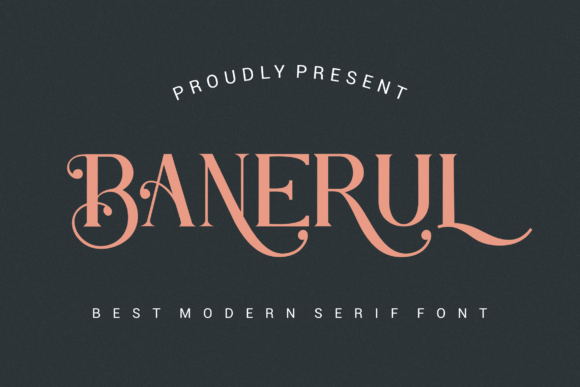
Unleash the Boldness & Authenticity in Your Designs with Banerul: The Best Font for Modern Logos
In a digital world brimming with visual noise, your brand's identity needs to stand out like a beacon of individuality. Banerul, a captivating serif font, rises to this challenge, arming you with the power to craft logos that are not just memorable but also timeless.
Banerul's bold and modern strokes exude a sense of strength and confidence, making it the perfect choice for businesses looking to make a striking first impression. Its authentic charm adds a touch of sophistication, elevating your brand above the mundane and into the realm of the truly remarkable.
With Banerul as your design ally, you'll embark on a journey of creative possibilities. Envision logos that leap off the screen, demanding attention with their boldness. Picture T-shirts adorned with eye-catching designs that turn heads wherever you go. Unleash your creativity and let Banerul be the catalyst for truly stunning visual creations.
But Banerul's talents extend far beyond logos and T-shirts. This versatile font thrives in a myriad of contexts, adding a touch of elegance to posters, flyers, and brochures. Its versatility knows no bounds, making it a font that truly has it all.
Elevate Your Designs to New Heights
Banerul is your gateway to design excellence, propelling your creations to new heights. Whether you're a seasoned designer or just starting your journey into the world of visual arts, Banerul will be your steadfast companion, guiding you toward extraordinary outcomes.
With Banerul at your disposal, you'll discover a newfound confidence in your design abilities. Its intuitive nature makes it a joy to use, allowing you to focus on expressing your creativity without getting bogged down by technicalities.
Experience the Banerul Difference
Banerul is more than just a font; it's an investment in your brand's future. Its timeless appeal ensures that your designs will endure the test of time, remaining relevant and impactful for years to come.
Join the ranks of creative visionaries who have embraced Banerul's transformative power. Let your designs speak volumes, leaving an indelible mark on the hearts and minds of your audience.